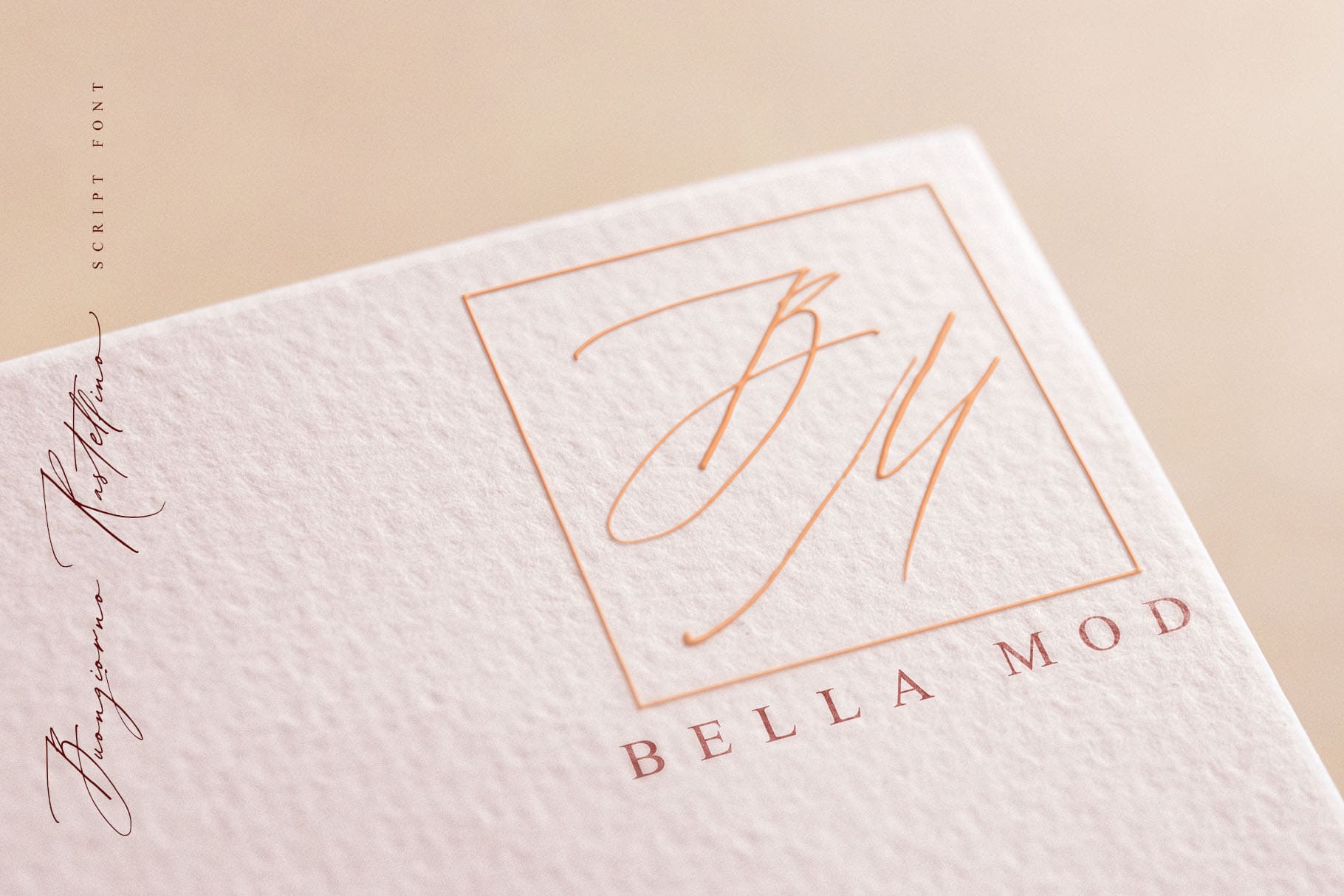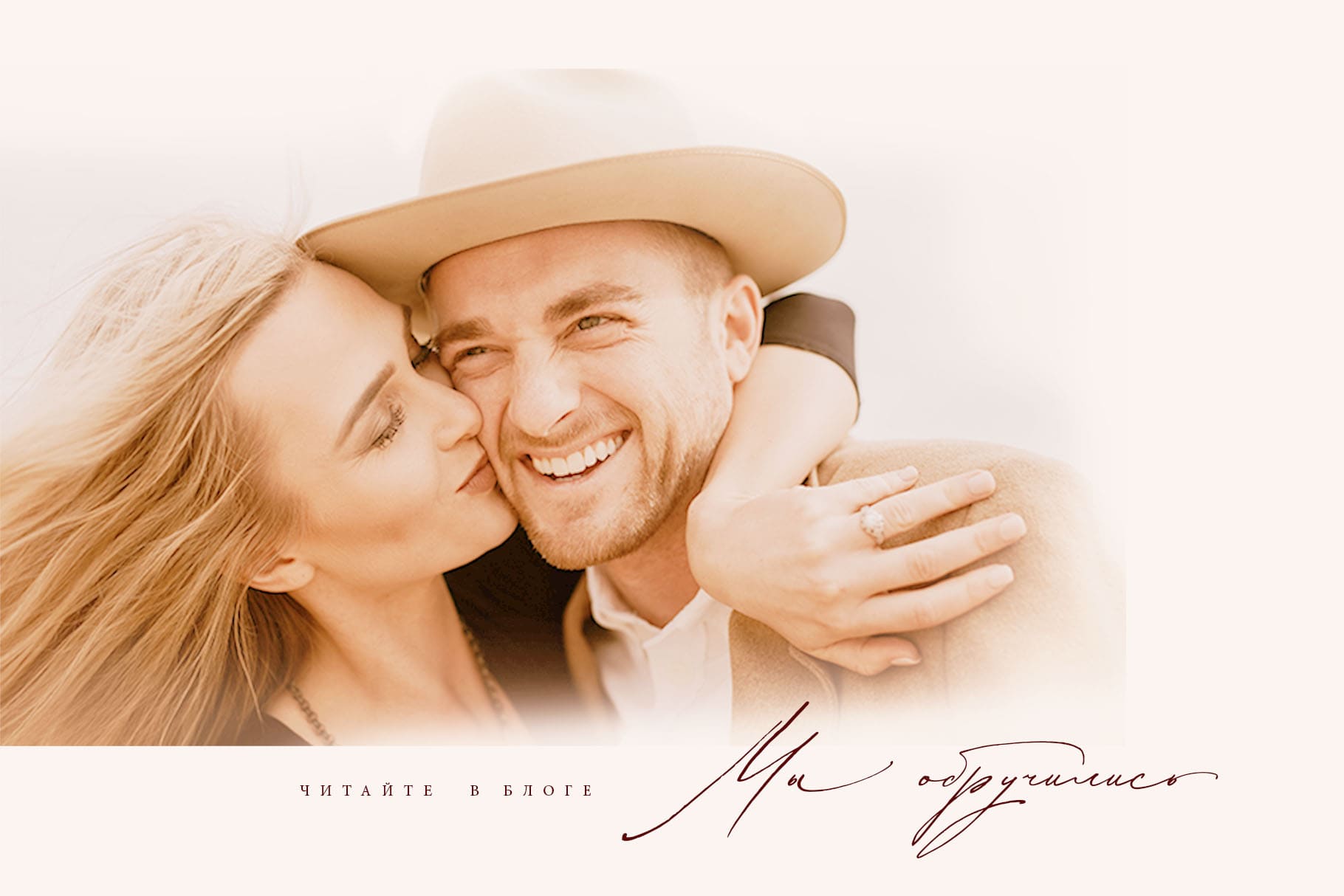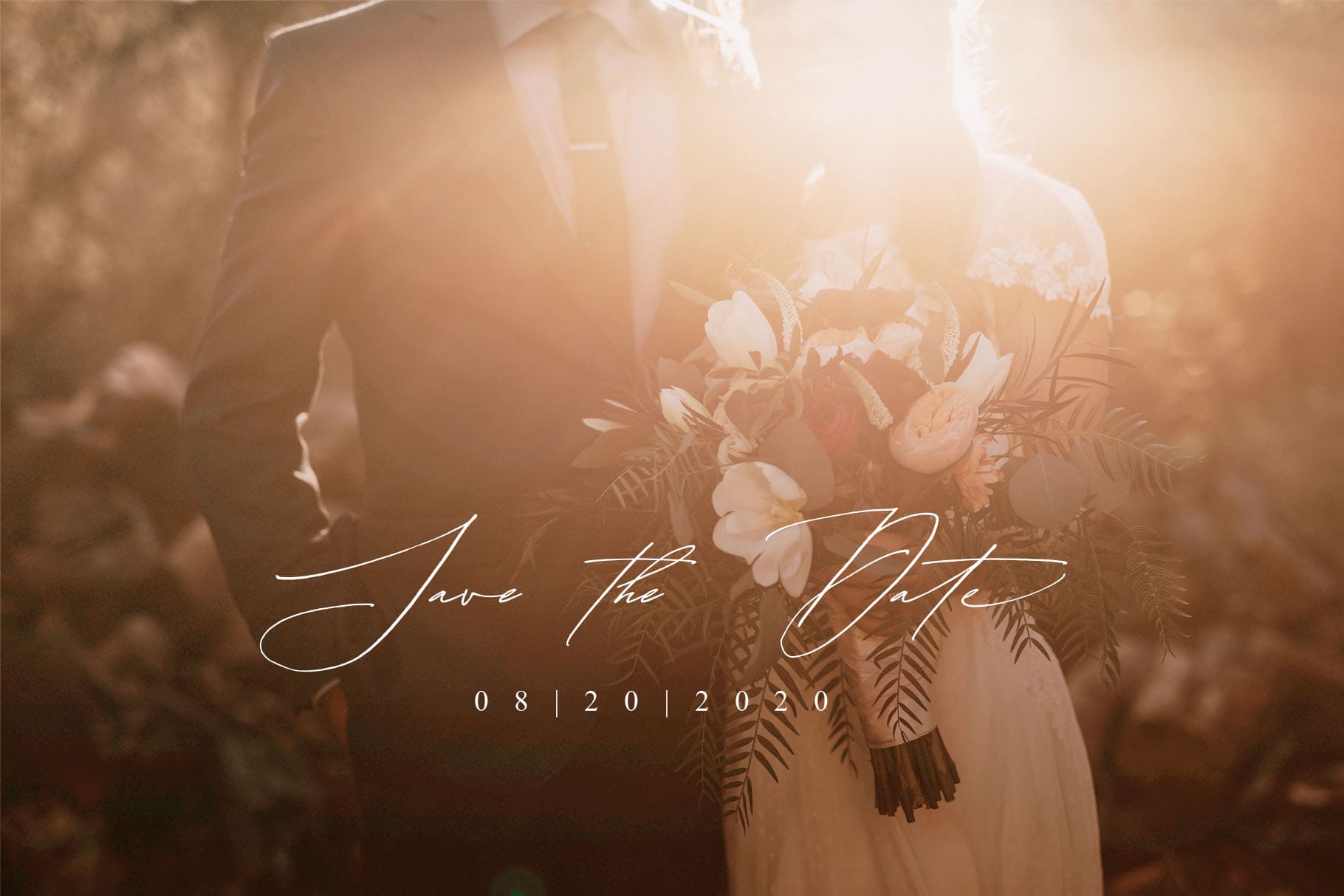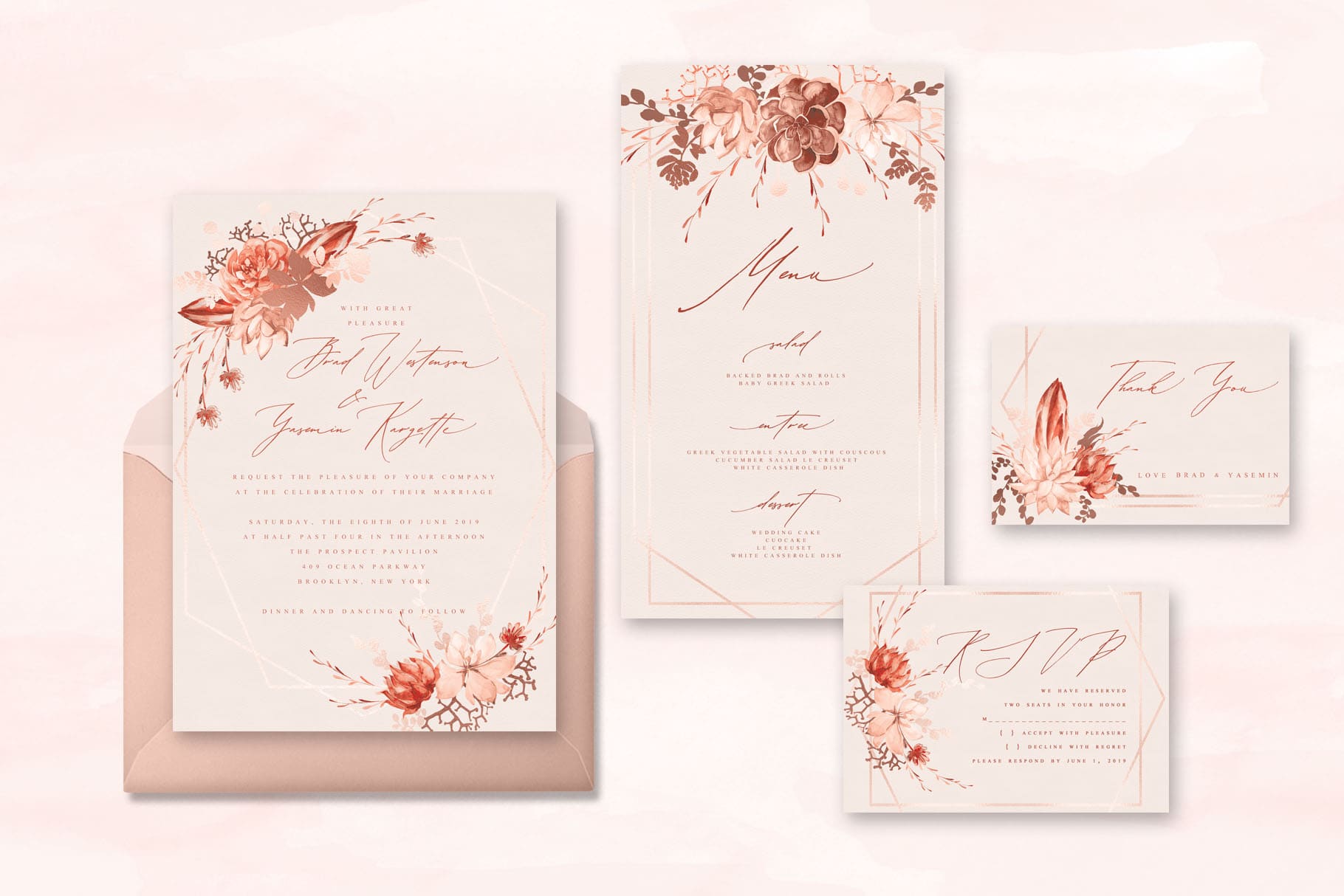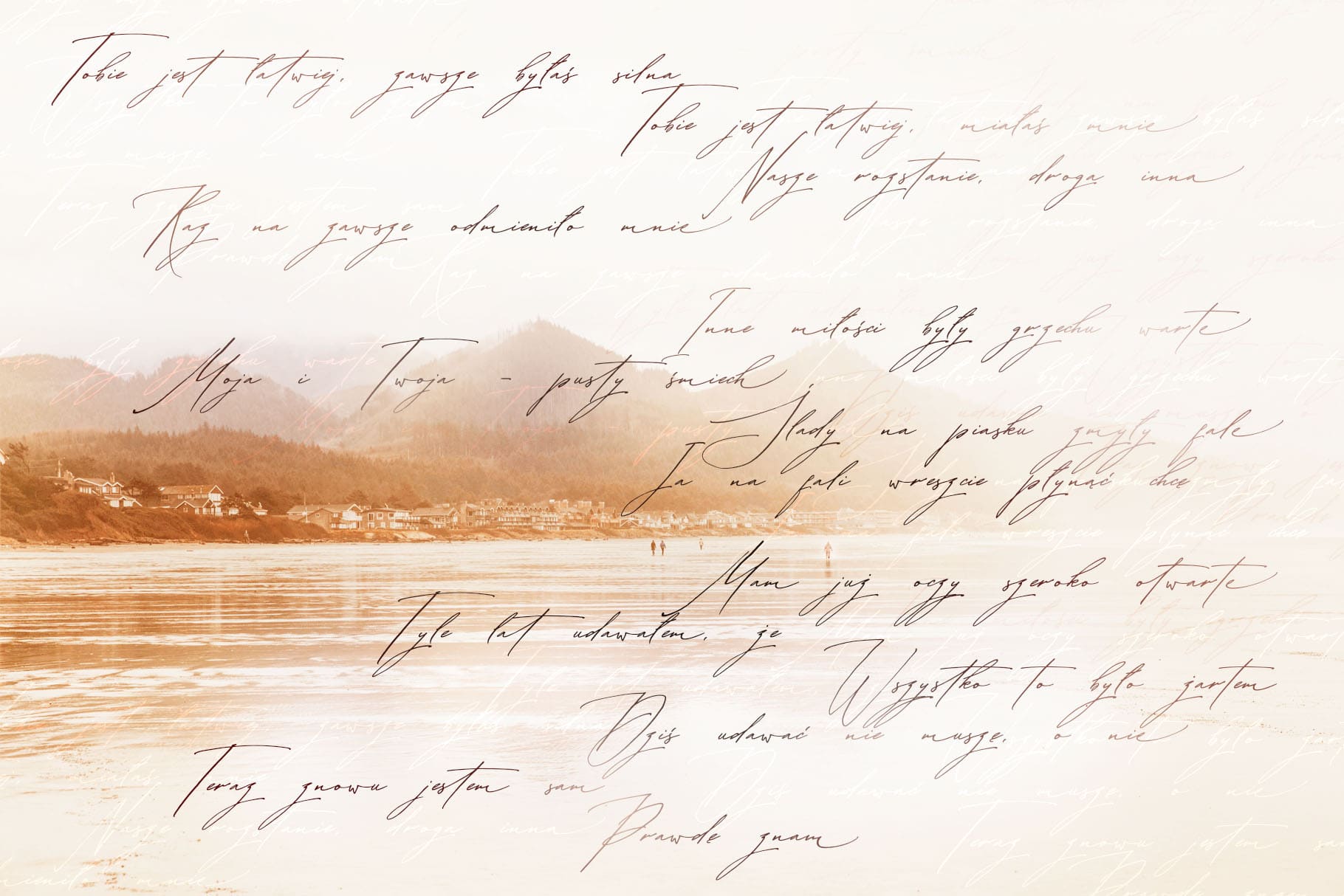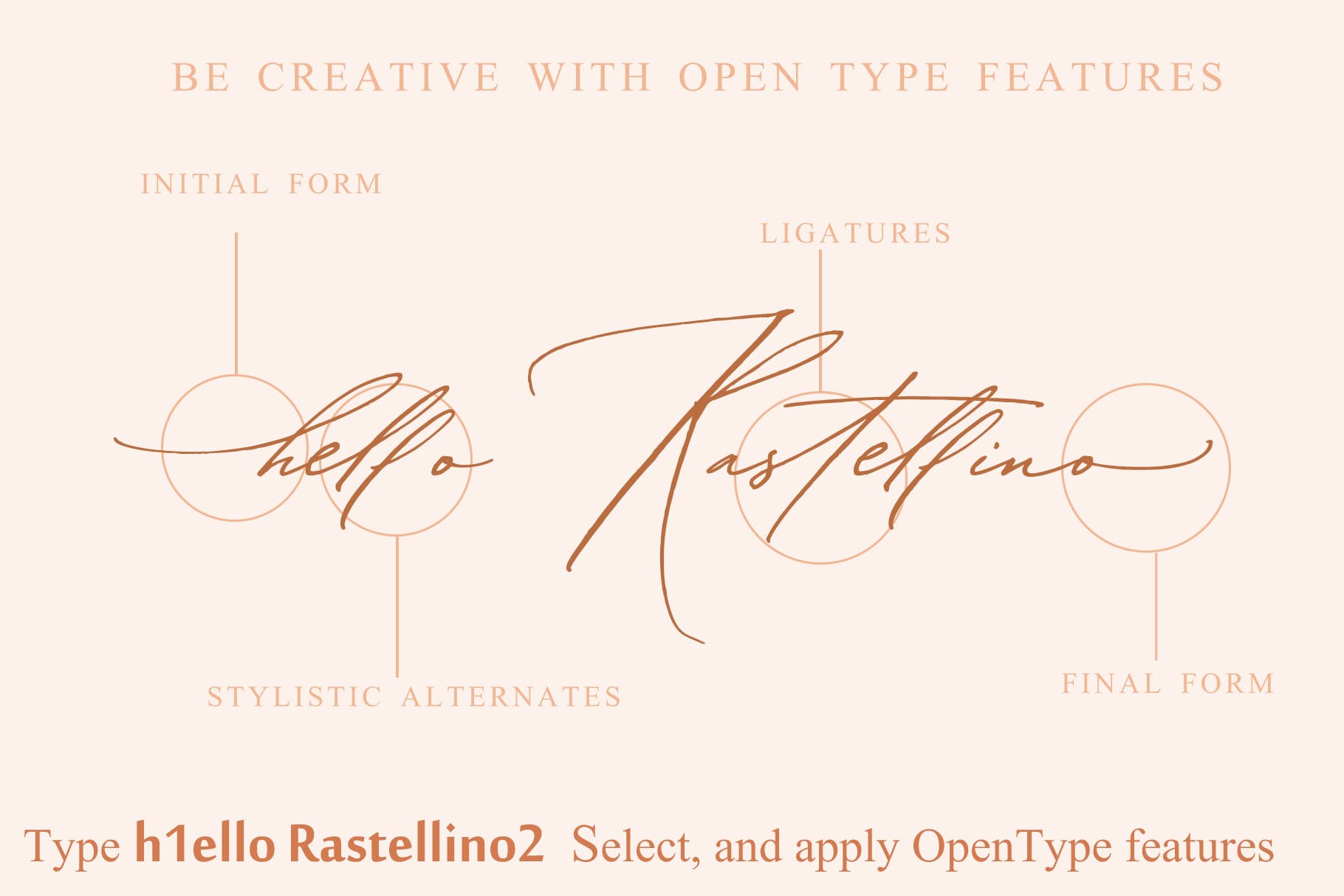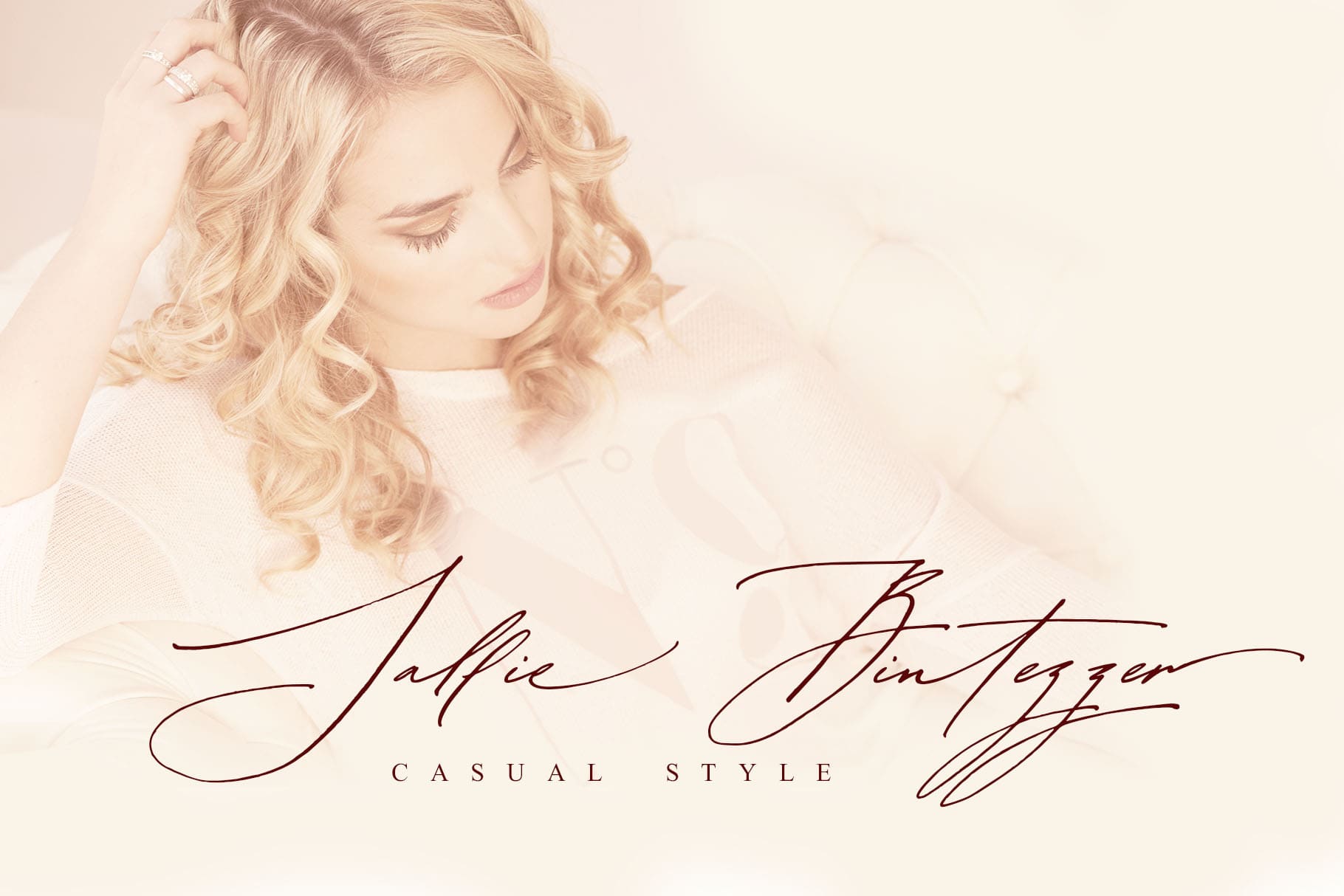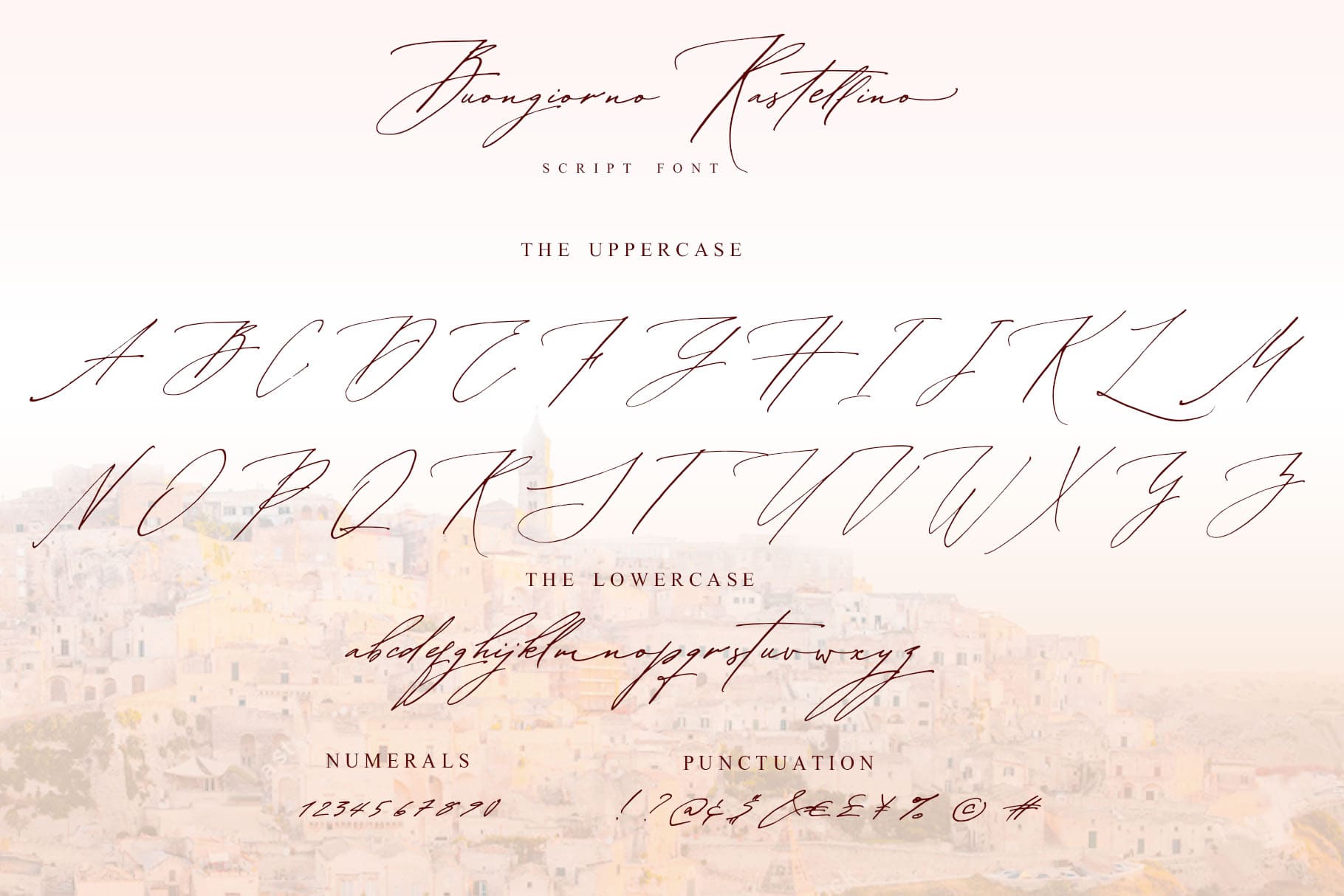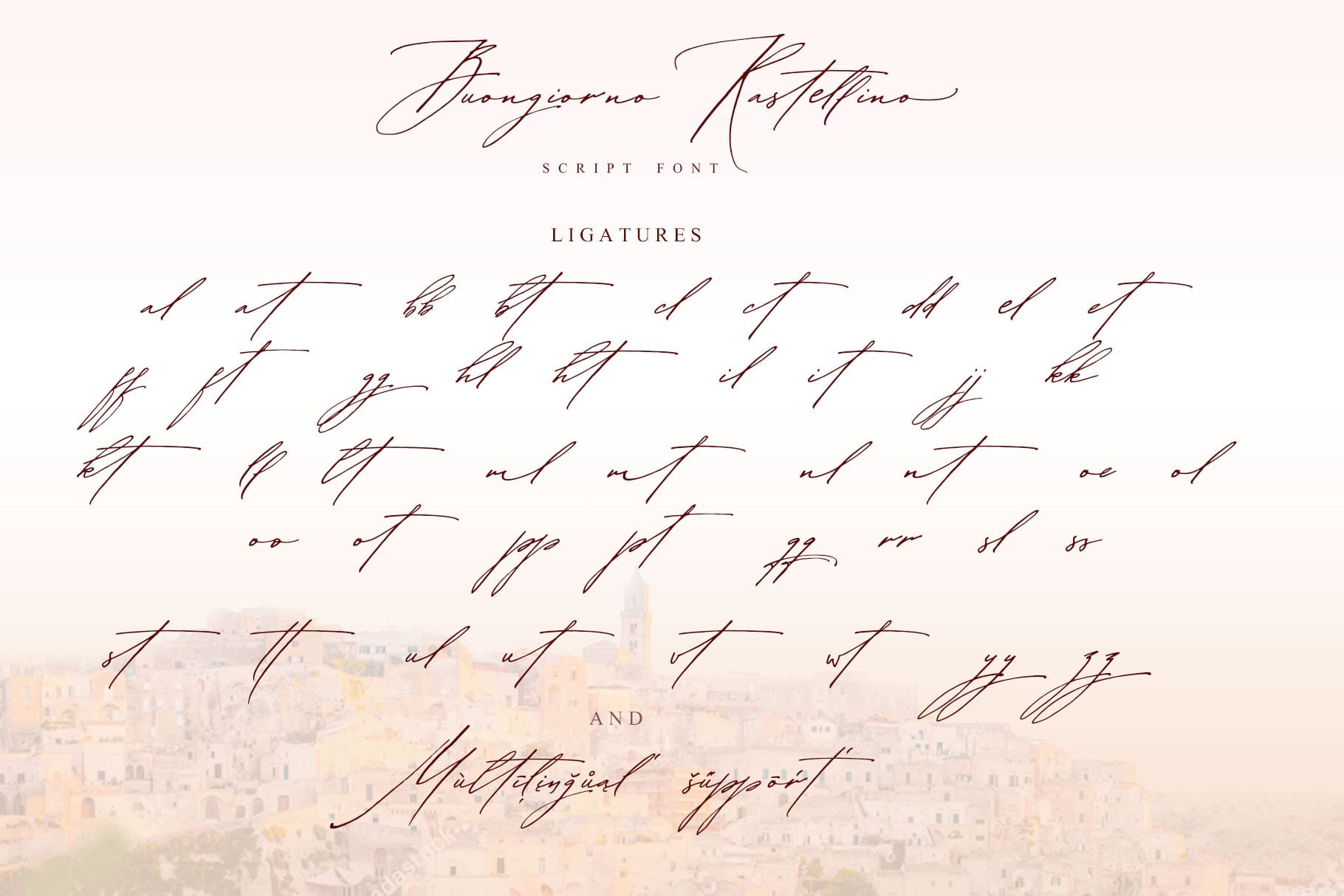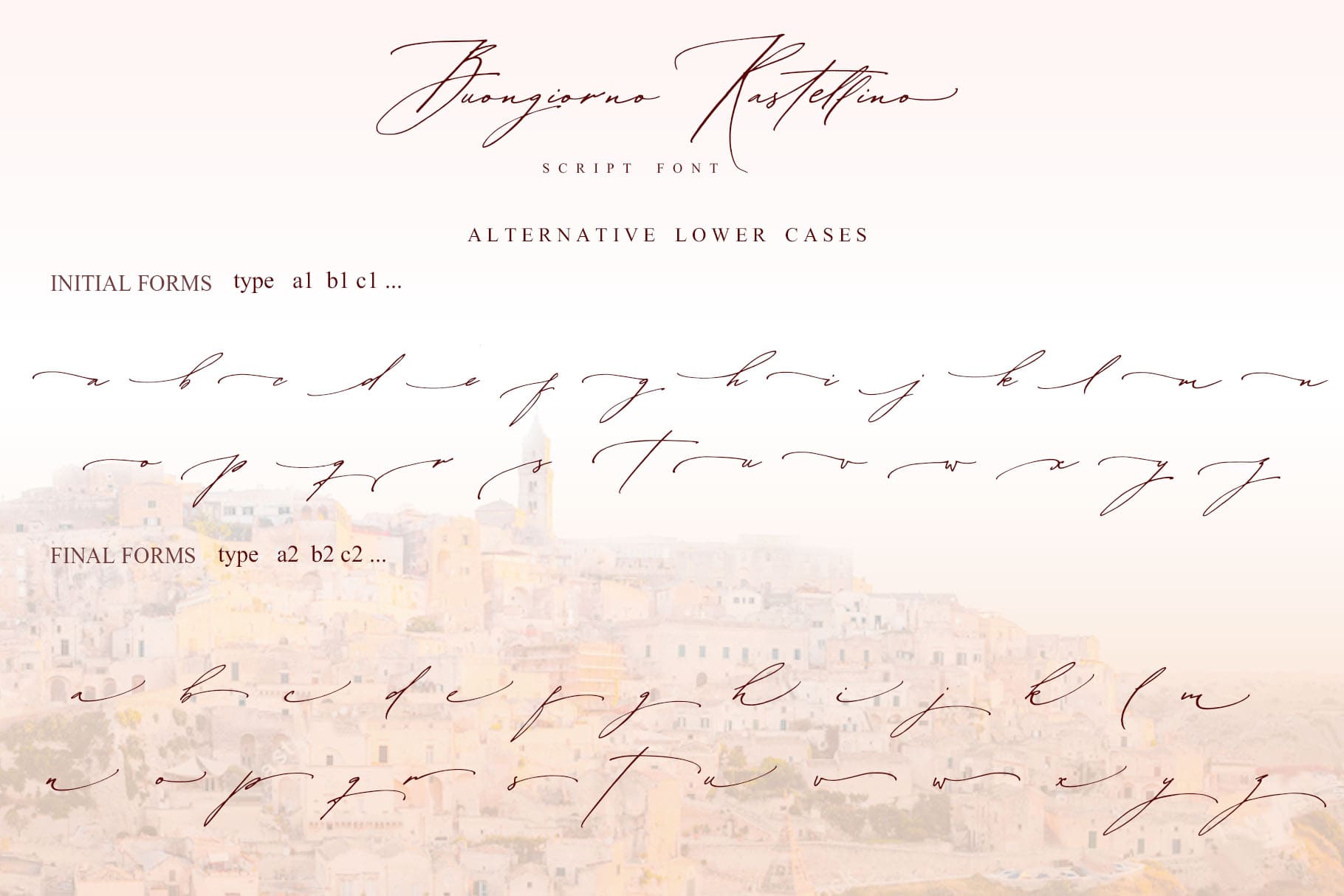
Buongiorno Rastellino Cyrillic Script (2 fonts)
Buongiorno Rastellino Cyrillic Script contains a full set of uppercase letters and 3 full sets of lowercase letters, (standard, alternative, and initial and final forms with flourishes). To make a form just type a letter with a number such as a1, b1, cl... )then select the word and apply the Open Type Features in programs such as Adobe Illustrator, Photoshop, and others).
Buongiorno Rastellino Cyrillic script font contains the Cyrillic glyphs too. Buongiorno Rastellino Symbols is a font with over 36 hand-drawn elements, floral illustrations, and swashes.Combine and merge swashes and illustrations to create your own unique designs and borders, frames, dividers, logos, and more (just use A-Z or a-z and 0-9 keys in the included Buongiorno Rastellino Symbols font). A different symbol is assigned to each uppercase or lowercase standard character, so you don't need a graphics software, just type the letter you need.
Multilingual Support for 31 languages: Latin glyphs for Afrikaans, Albanian, Basque, Bosnian, Catalan, Danish, Dutch, English, Estonian, Faroese, Filipino, Finnish, French, Galician, Indonesian, Irish, Italian, Malay, Norwegian Bokmål, Portuguese, Slovenian, Spanish, Swahili, Swedish, Turkish, Welsh, Zulu. Cyrillic glyphs support for Russian, Belorussian, Bulgarian, and Ukrainian languages.